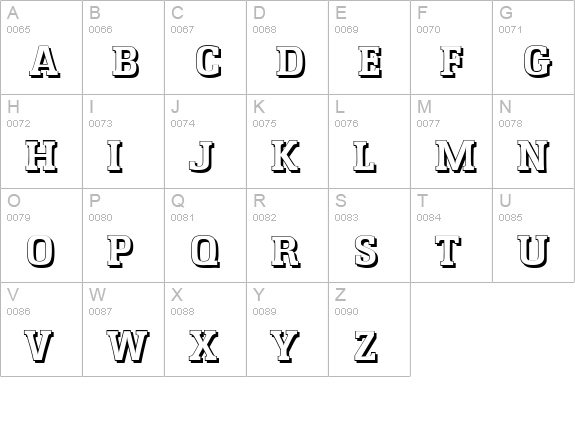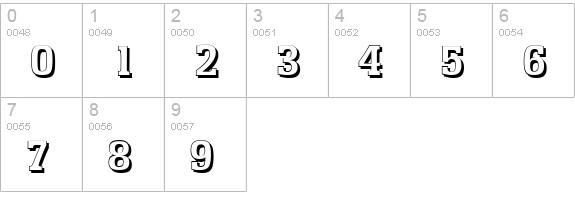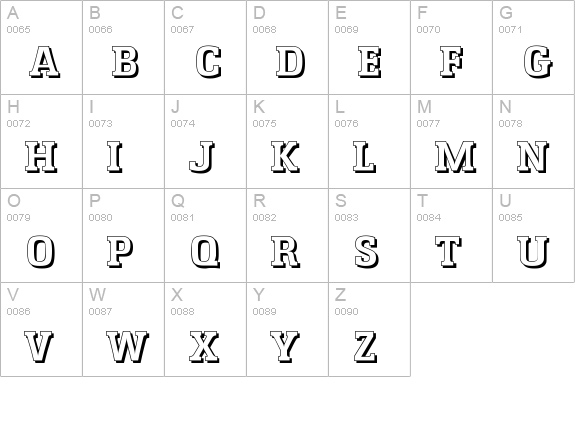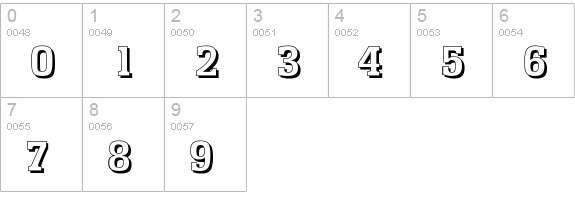
EnschedeShadow-Bold Font Details
EnschedeShadow-Bold is a strong, high-contrast variant in the EnschedeShadow typeface family \xE2\x80\x94 well suited to headlines, attention-grabbing titles, and strong calls-to-action.
EnschedeShadow-Bold is a bold and striking display font that exudes confidence and elegance. Its sharp edges and strong presence make it perfect for headlines, titles, and logos that demand attention. The font's unique shadow effect adds depth and dimension to any design, creating a visually captivating impact. What sets EnschedeShadow-Bold apart is not just its design, but also its accessibility. This premium font is available for free download at FontsMarket.com, making it easily accessible to all designers and creatives looking to elevate their projects with a touch of sophistication and style. Whether you're working on a branding project, advertising campaign, or any other creative endeavor, EnschedeShadow-Bold is sure to make a bold statement that leaves a lasting impression.